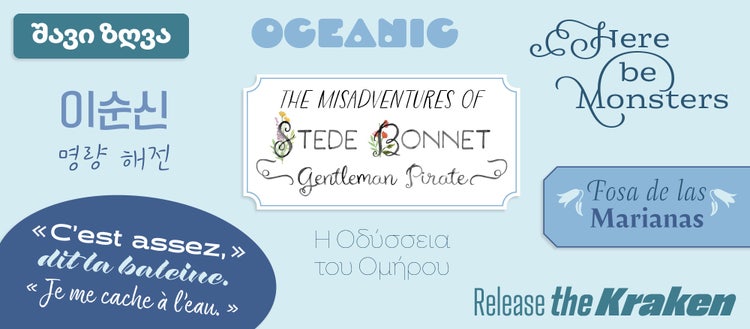
Variable fonts have landed on Adobe Creative Cloud! But what are they, and why should you care? You can read up on the many advantages of working with variable fonts before exploring the unprecedented capabilities they offer — or plunge right in.
Besides creating variable versions for classics like Myriad, Kepler, and Ten Oldstyle, Adobe Originals also introduces new designs in the variable font format. The weight of the amicable sans Pelago Variable can be adjusted to your exact specifications, while the serif/sans siblings Oso Serif Variable and Oso Sans Variable give you control over their width too. The versatile Acumin Variable — a neo-grotesque face bundled with Photoshop, Illustrator, and InDesign since 2016 — has also arrived at Adobe Fonts.
Emigre’s Littlebit Variable reimagines bitmap typography by letting the user control the shape and size of the pixels.
OH no Type Co.’s variable font releases on Adobe Fonts exhibit a wide breadth. On one hand, the dynamic Obviously Variable, the sturdy Degular Variable, and the geometric Retail Variable are versatile, multifunctional fonts. On the other, the comforting Ohno Softie Variable, the semiscript Ohno Casual Variable, the relaxed Irregardless Variable, and the squishy Cheee Variable with its unusual Yeast and Gravity axes have unique, surprising personalities.
Underware is a trio of typographic alchemists, explorers whose experiments push the limits of font technology beyond what anyone could (or would dare to) imagine. Zeitung Pro Variable is a sharp, clean sans serif typeface with an expansive weight range. The casual script Duos Variable emulates the fast scribbles on grocery lists and notes to self.
Minjoo Ham’s powerful Hangul display face Dunkel Sans Variable allows you to glide seamlessly between its original, dynamic style and the straight Glatt variant.
Help people find their own unique way with Fontef’s NextExit Variable, a crisp sans serif inspired by Israeli highway signage. As the exclusive distributor of Zvi Narkiss’s classic Hebrew designs, Fontef turned the sans serif Narkiss Yair and the text faces Narkiss Asaf and Narkiss Text into variable fonts.
TypeTogether’s popular sans/script hybrid Bree offers variable versions with a weight slider for its Cyrillic, Greek, and Thai script extensions. You can adjust the weight of the geometric Postea Variable, and the narrow Lektorat Variable can also be set increasingly tight. The serif typeface Atlante Variable remains readable when set small, thanks to its optical size slider.
Dalton Maag’s all-purpose sans serifs available in the variable font format include the supple Effra CC Variable, the geometric Objektiv Variable, and the lively Highgate Variable. Inspired by art deco, Mendl Sans Variable and Mendl Serif Variable come in two style variants: the retro Dusk and the architectural Dawn. Mokoko Variable’s sturdy serifs make your words look confident.
Paratype’s first variable fonts on Adobe Fonts include evergreen favorites Bodoni PT Variable, DIN Condensed Variable, and DIN 2014 Rounded Variable, as well as contemporary sans serifs Nagel Variable, Gate A1 Variable, and Fact Variable. Users can fine-tune the weight of all of these fonts, and can also control Bodoni PT Variable’s optical size, Nagel Variable’s slant, and Fact Variable’s width.
The optical size axis of G-Type’s serif face Sherborne Variable makes it work well as either a text or a display font. Copperscript Variable is a radically modern interpretation of vintage penmanship — Goskar Variable strikes the perfect balance between calligraphic and relaxed.
Similarly, Jamie Clarke Type’s handwritten script SideNote Variable hits the sweet spot between easy-going and professional.
HVD Fonts’s warm and inviting Bouba Round Variable works well in whimsical, lighthearted contexts — but also in more sober settings like branding and app interfaces. The contrast between thick and thin strokes in Palast Variable increases spectacularly to match larger optical sizes, making it a perfect choice for readable small text and dramatic headlines.
Supertype’s aptly named sans serif Adapt Variable is, well, super adaptable! You can change this all-purpose font’s weight and width without being constrained by preset styles.
Firelli Variable’s wide stance and chunky slab serifs, and Arnika Variable’s economic, sharp letterforms with a large x-height make for powerful titles.
Typejockeys outfitted Antonia Variable with an optical size slider to ensure it looks its best in both text and display uses.
Besides its weight, Phospho’s reverse-contrast sans Antipol Variable allows you to seamlessly adjust its Stretch and Width axes.
Capitalics’s extra-stretchable Podium Sharp Variable also has a Soft variant that simulates ink spread for a warm, affable air. Geller Sans Variable is a versatile humanist sans serif whose weight and width can be tweaked for greater precision and control.
Dive into the wondrous world of variable fonts. Design to your heart’s content without the constraint of preset weights, widths, and other variations. Save bandwidth and use unlimited styles in web projects and apps thanks to the compact, all-in-one variable font format. What are you waiting for?